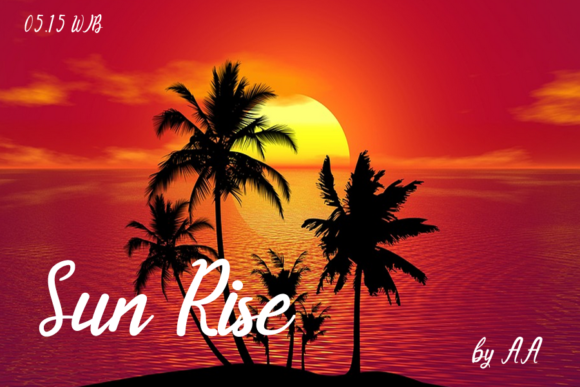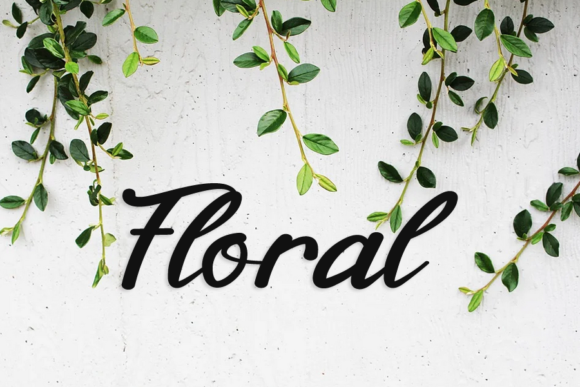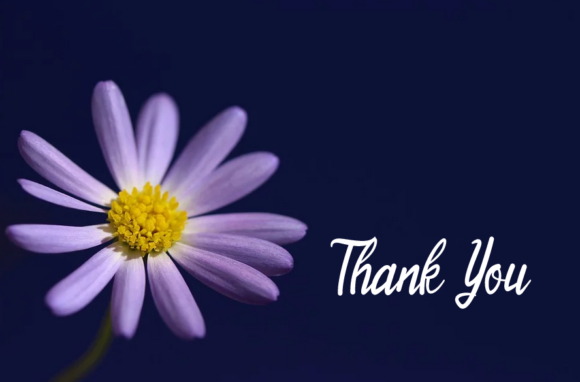
Simple Vintage Font
Introducing “Simple Vintage,” a sweet, whimsical, flowing, and thin script font designed to bring a touch of luxury to your design projects. With characters that dance along the baseline, this font adds a charming and elegant spark to any creative endeavor you wish to undertake.
The whimsical and flowing design of “Simple Vintage” sets it apart, making it an ideal choice for projects that demand a delicate and luxurious touch. Whether you’re working on wedding invitations, logos, or any design where a whimsical and elegant aesthetic is desired, this font is crafted to leave a lasting impression.
Imagine “Simple Vintage” as the perfect companion for infusing a luxury spark into your projects. Whether you’re creating romantic wedding invitations or designing a sophisticated logo, let the characters of this font dance along the baseline, adding a unique charm and elegance to your creative works.
In summary, “Simple Vintage” is more than just a font; it’s a sweet and whimsical script designed to bring a touch of luxury to your design projects. Embrace its flowing and thin characters, and let it be the element that adds a delightful and elegant spark to your creations, leaving a lasting impression on your audience.